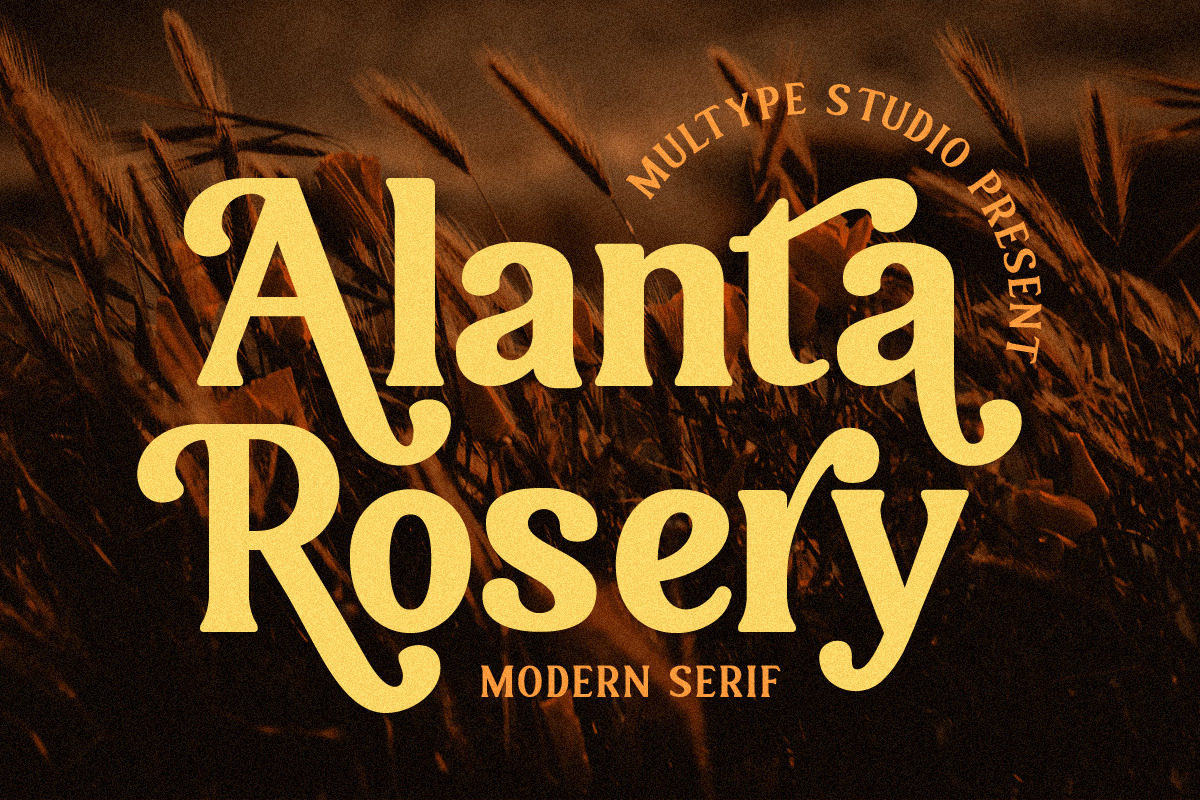
Alanta Rosery Modern Font
Alanta Rosery is a modern serif font. Alanta Rosery is perfect for branding, logos, social media, advertisements, product packaging, watermark, invitation, stationery, tshirt, prints, posters and more
- Stylistic Alternate
- Numbers & Symbols